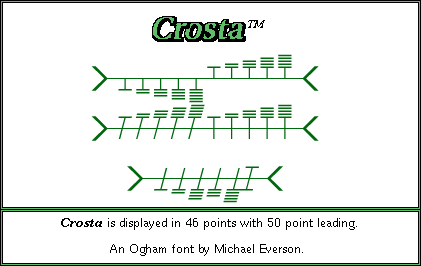
Crosta is a scholastic Ogham font based on "the Crossed Virgean Cryptography" found in the 19th century manuscript Betham 23 M 11, folio 46. This font is encoded according to I.S. 434:1999 and Unicode.